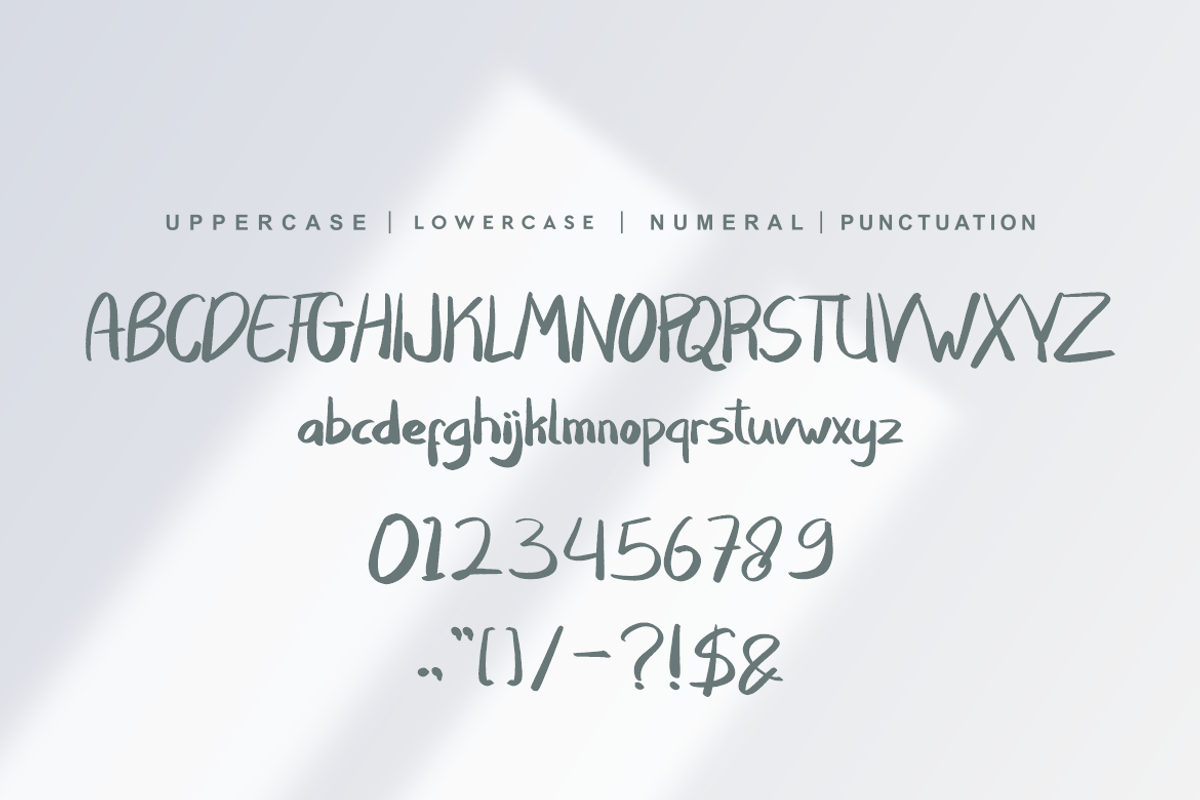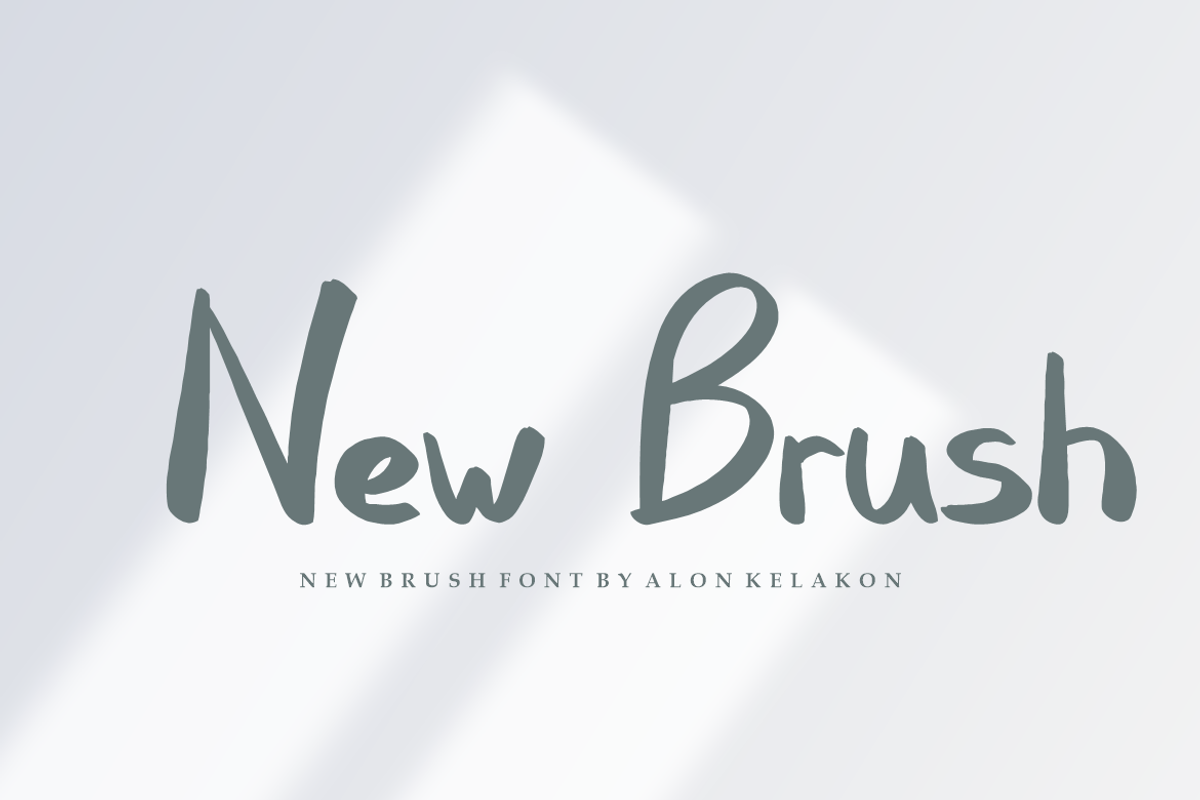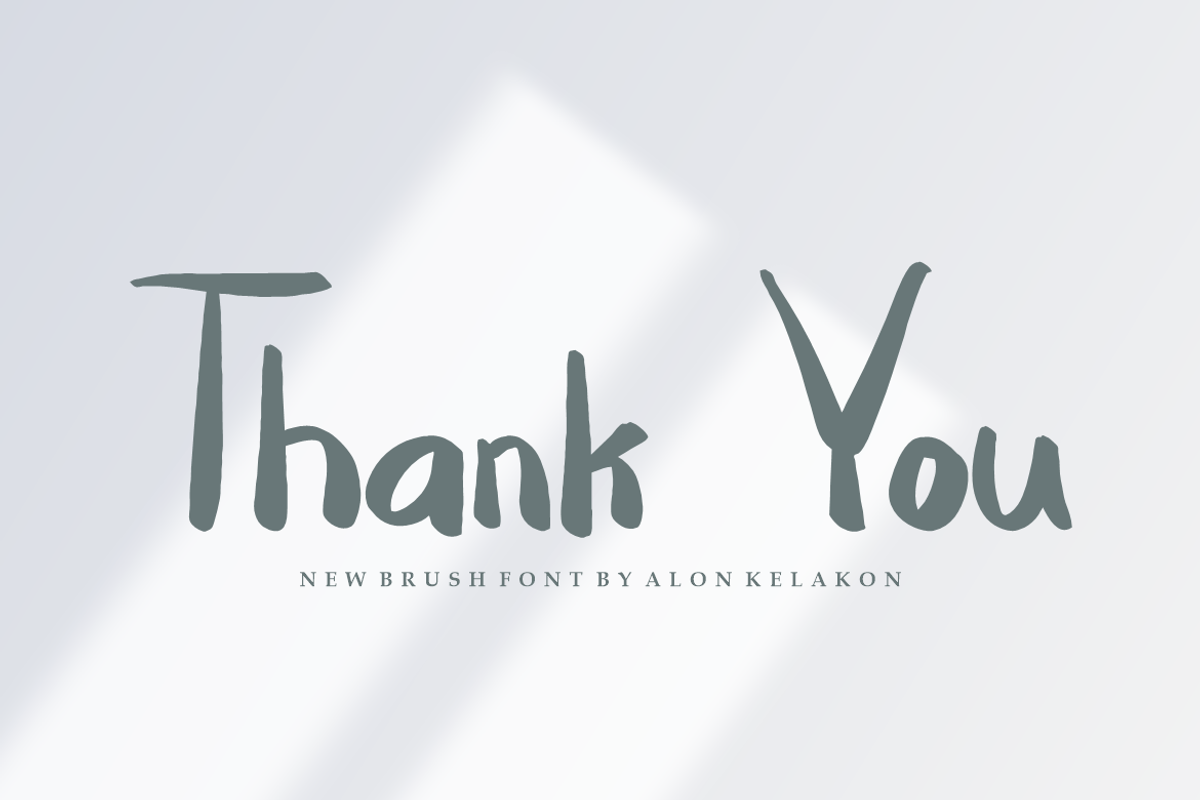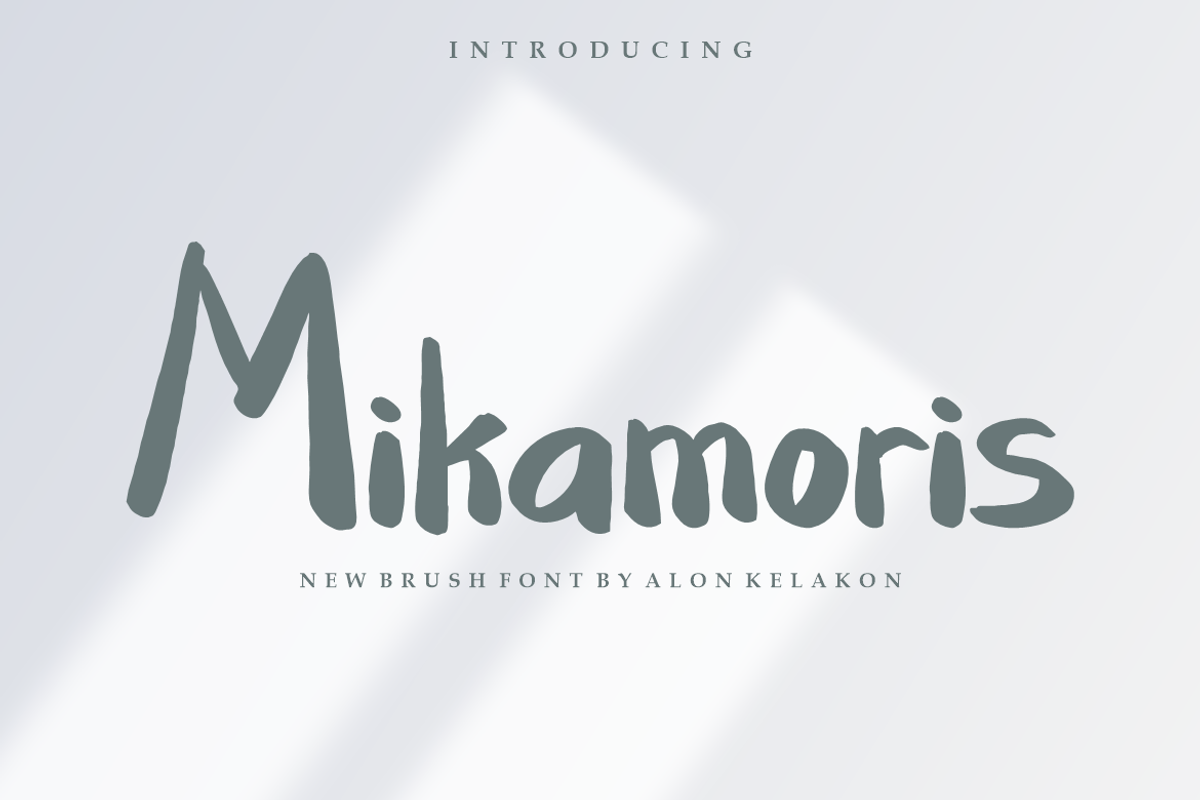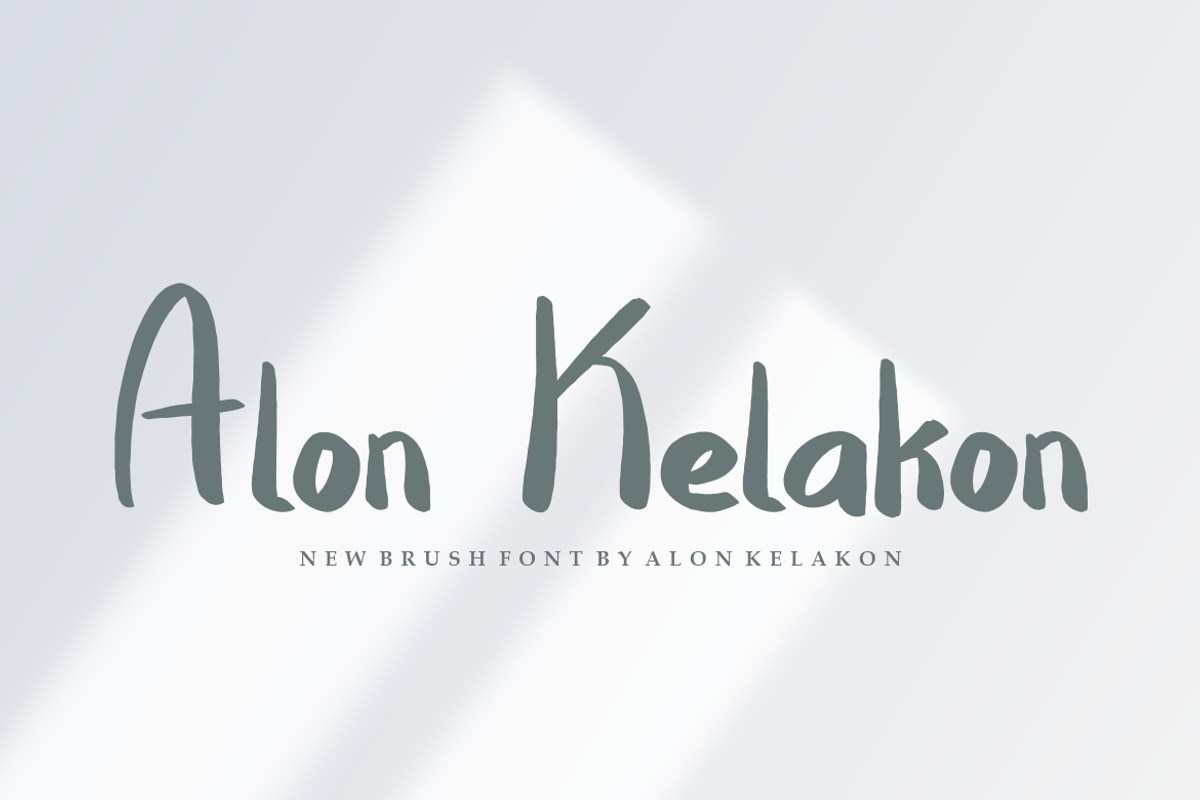
Mikamoris Font
Mikamoris Font Font is unique . Ready to use for your design like labeling, clothing, movie sceen, poster, movie title, gigs, album covers, logos, and much more.